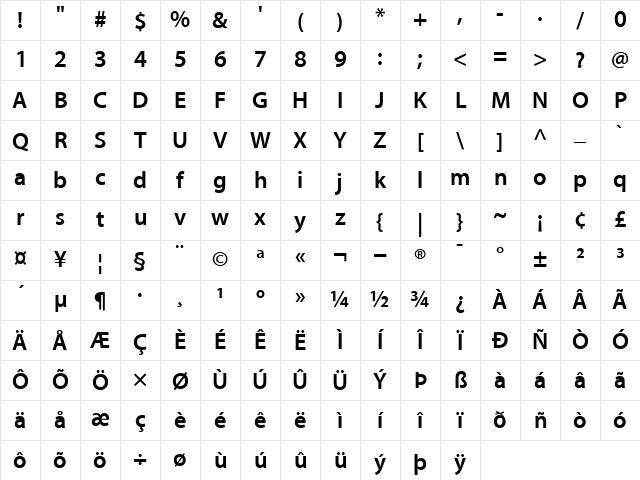
AdobeCorporateIDMyriad-SemiBold Semi Bold
Style: Semi Bold
Complete AdobeCorporateIDMyriad-SemiBold Semi Bold glyph index. Displaying only characters natively supported by AdobeCorporateIDMyriad-SemiBold Semi Bold font.
Design Context for AdobeCorporateIDMyriad-SemiBold
AdobeCorporateIDMyriad-SemiBold is a composed and adaptable typeface that performs quietly and consistently across a wide range of design contexts. Its bold stroke weight gives it real presence on the page.